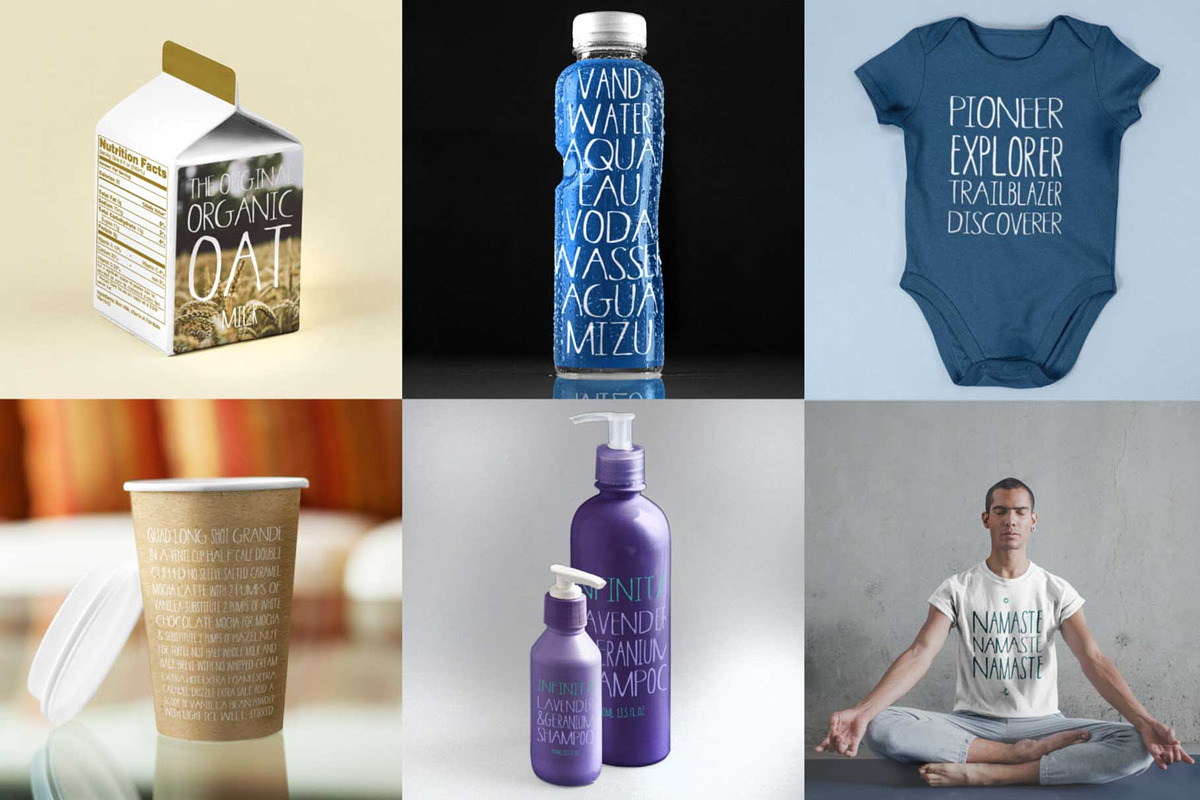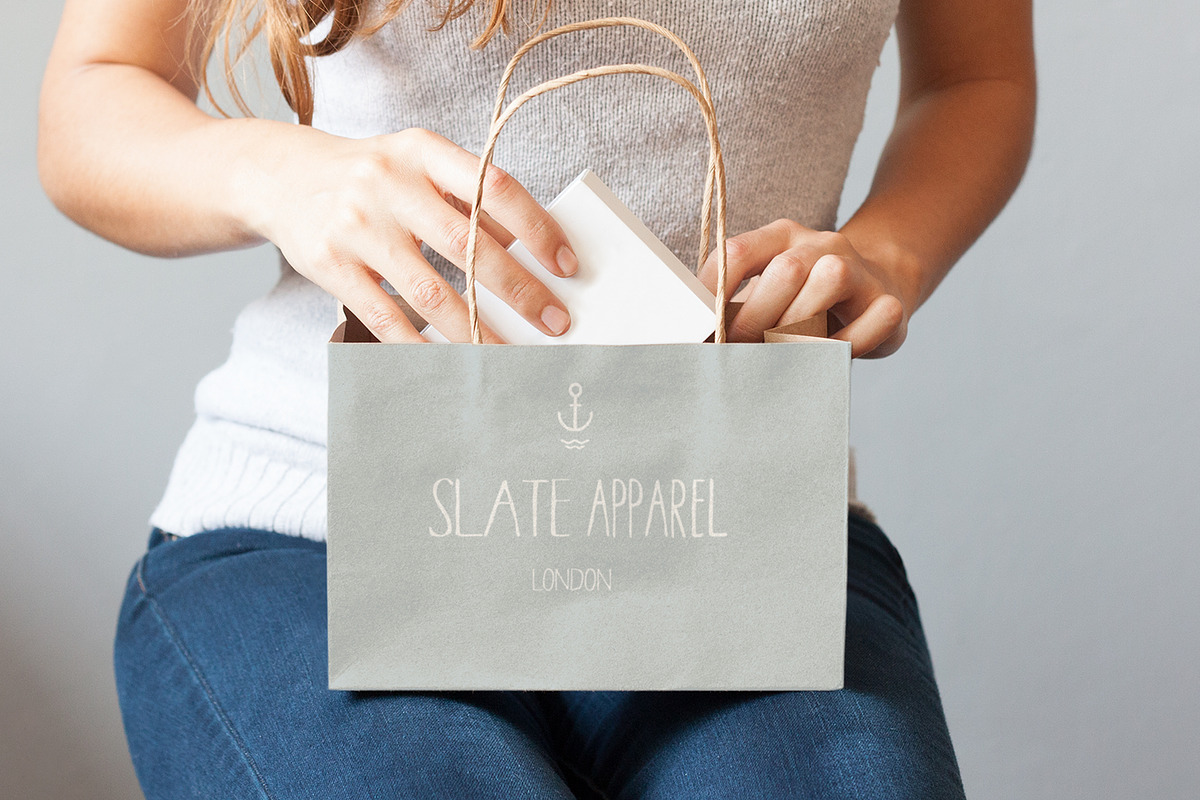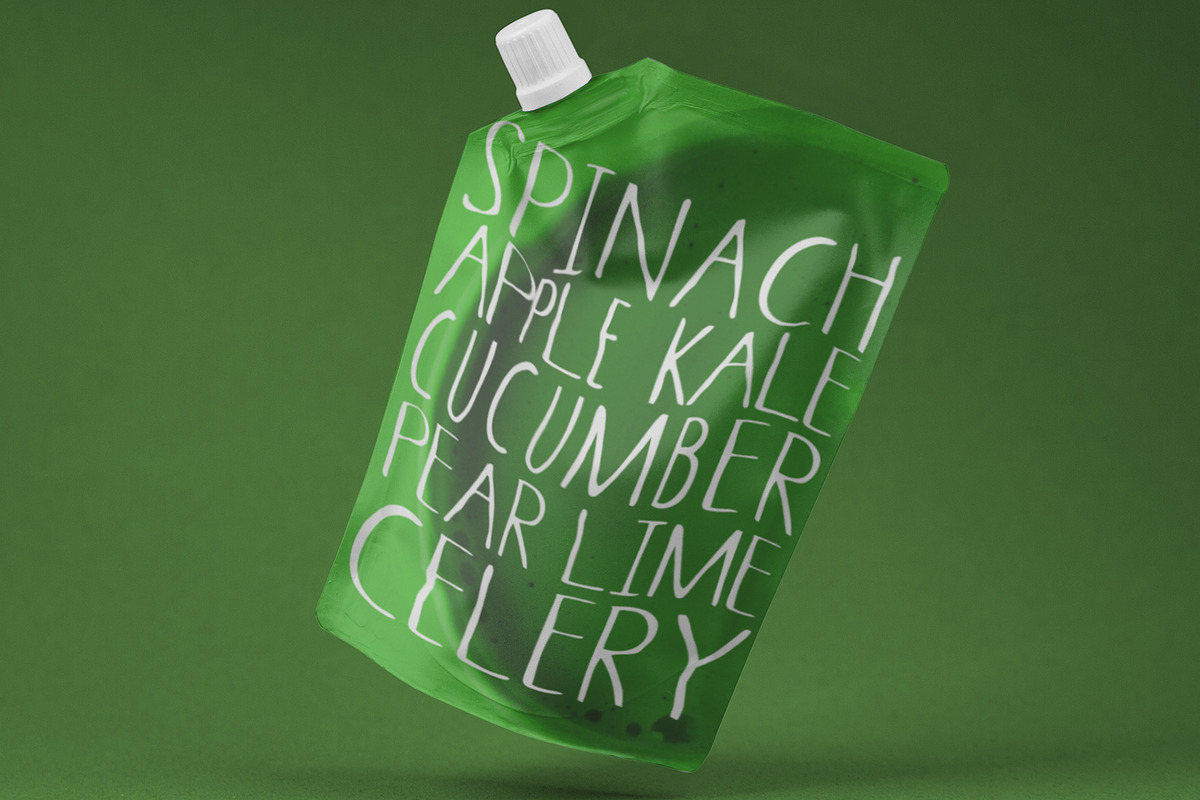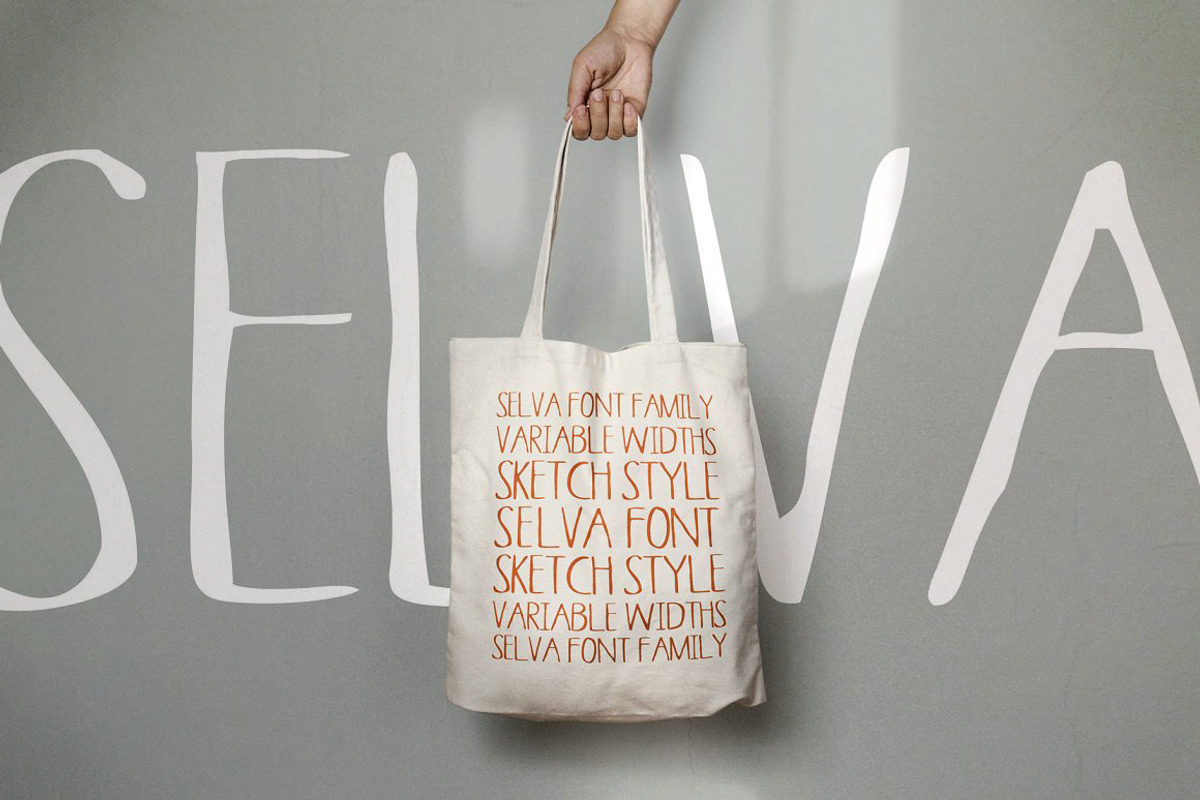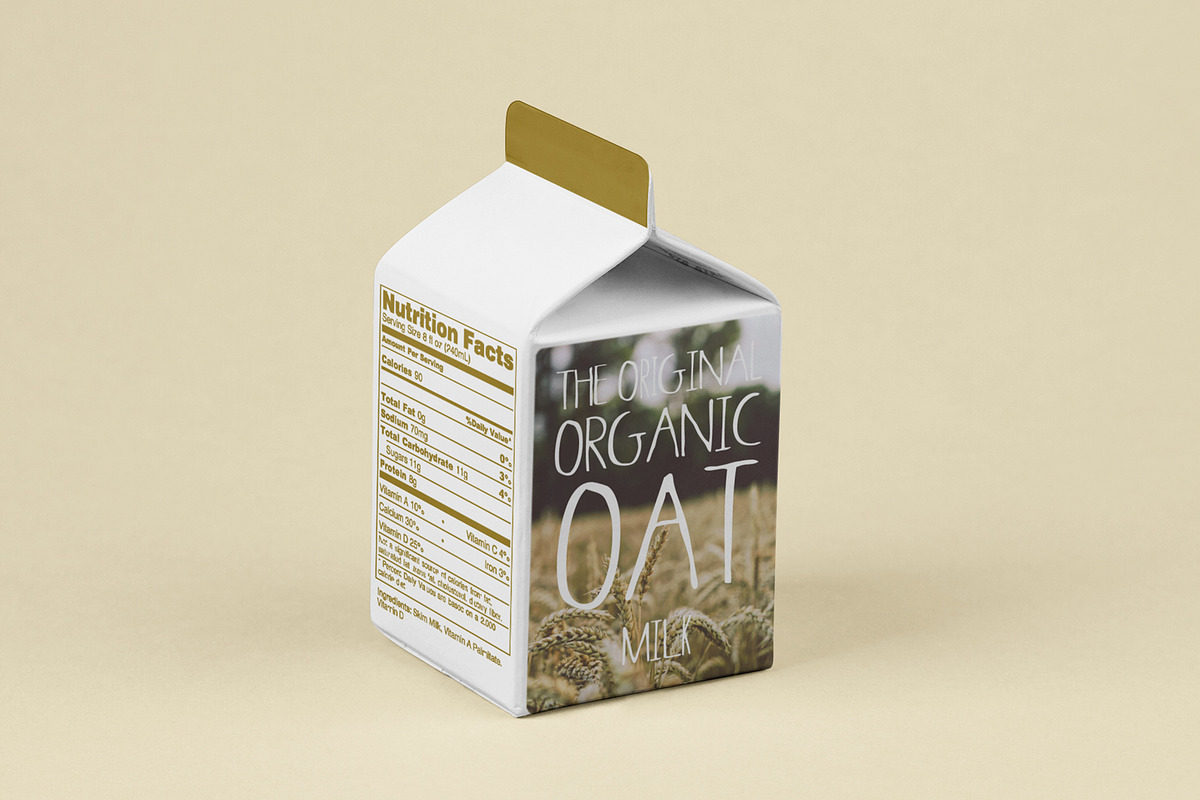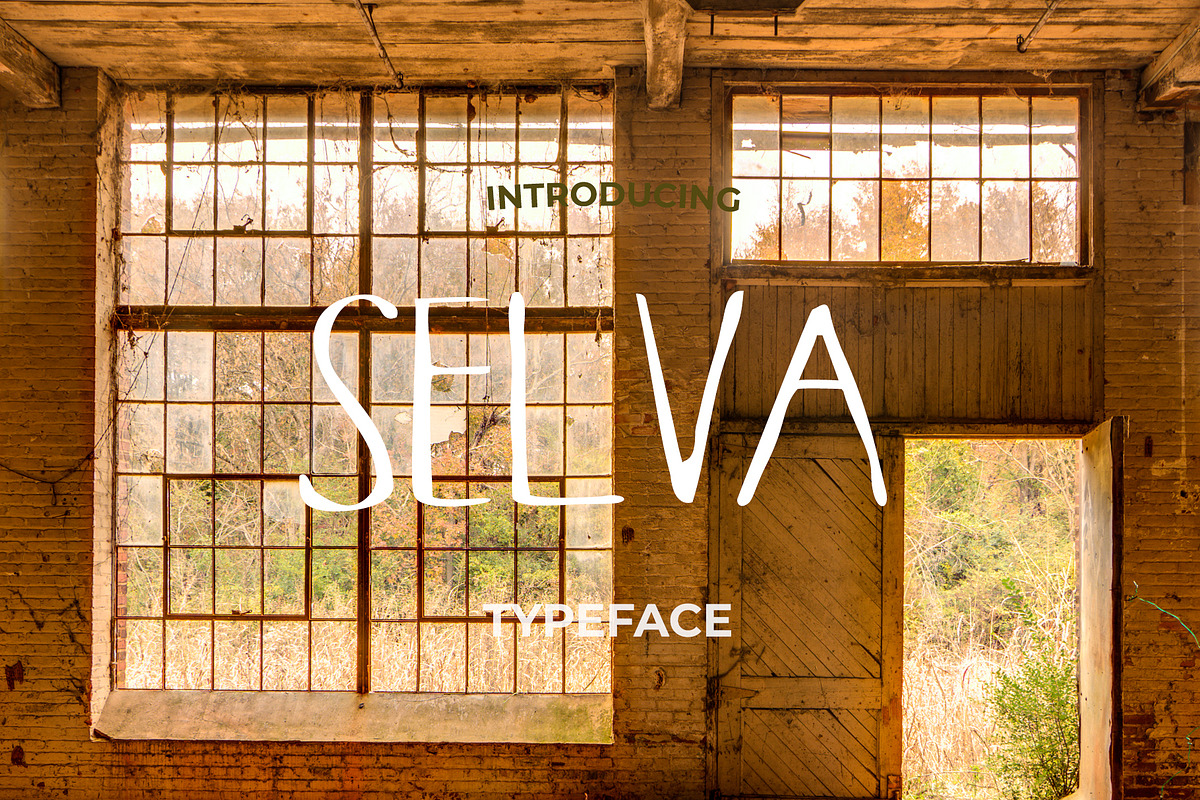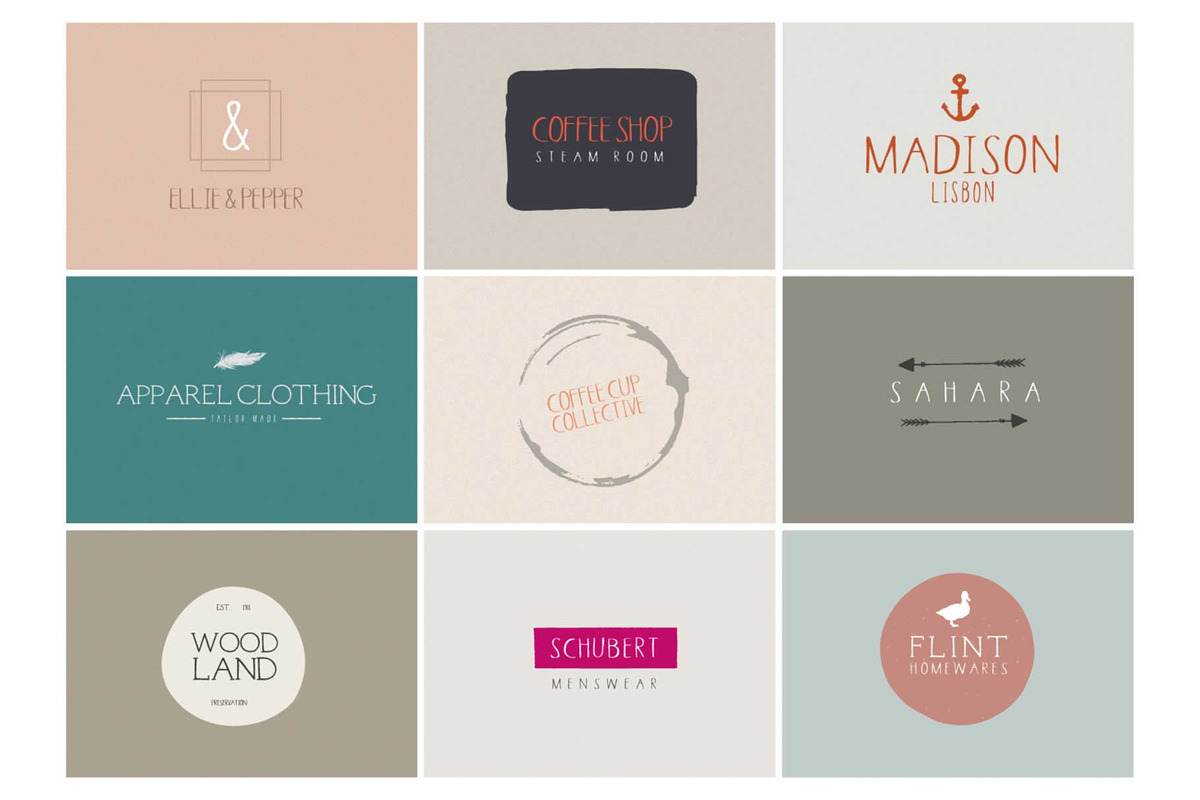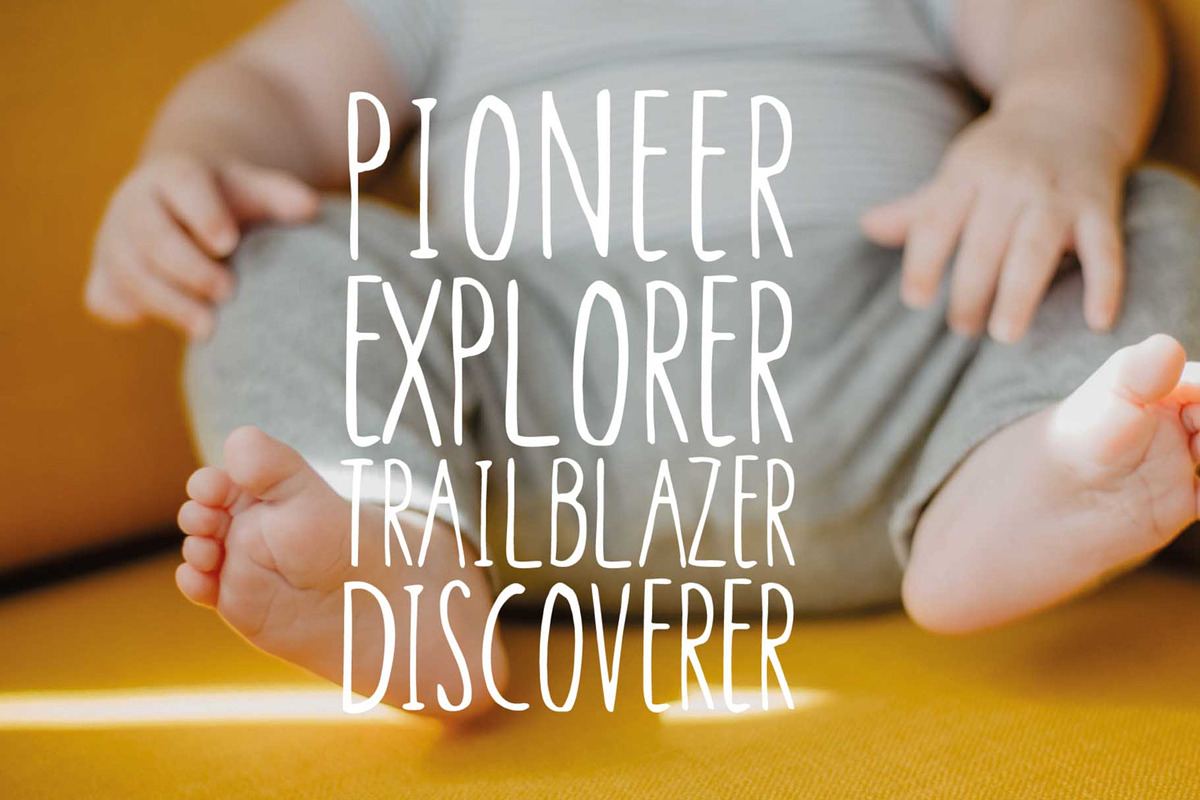
Selva Hand Typeface
SELVA is a set of three varying width simple hand lettered three font family with a is a hand sketched minimalist style. Great for those natural logos and quotes, Selva is also quite legible at small sizes as body copy.
This family looks amazing on wedding invitations, signage, quotes, and even websites! Test it out in the sample box to see how your company name, wedding date, or favorite quote will look using Selva Font set! It also includes 6 free logo templates for you to use in your next branding project (for use in Adobe Photoshop and Illustrator)!
Selva Font in three weights - Bold, Regular and Condensed (otf, ttf and woff), which pair well together
Upper and lowercase, with MultiLanguage Support and over 750 Glyphs each!
Why Selva Hand Typeface is worth a look
Selva Hand Typeface by Craft Graphic Type fits naturally into Branding, posters, packaging, typography.